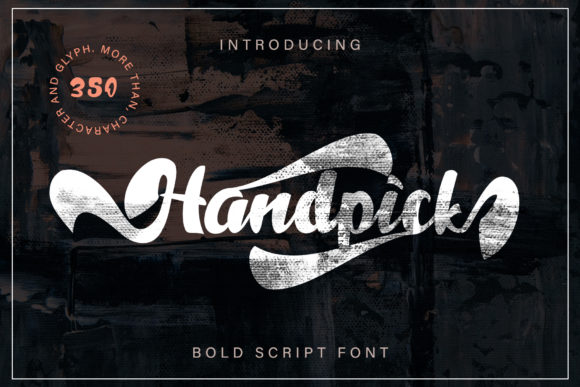
Introducing the Handpick Font - A Stroke of Brilliance for Your Creative Journey
Welcome to the world of Handpick font, a meticulously crafted script font that will ignite your creativity and transform your designs. Handpick is the brainchild of thomasaradea, a renowned font designer known for his exquisite artistry and passion for creating fonts that speak to the heart.
Handpick is not just a font; it's an experience. A journey through the realm of imagination, where words dance with grace and elegance, leaving a trail of enchantment in their wake. With its bold strokes and captivating curves, Handpick captivates the senses and invites you to explore the boundless possibilities of creative expression.
Step into the realm of Handpick and discover a font that's as versatile as it is captivating. Whether you're a seasoned designer seeking a touch of sophistication or a budding artist searching for a unique voice, Handpick is your perfect companion. Its adaptability shines through in a myriad of projects, from heartfelt wedding invitations and enchanting logos to alluring posters and stunning social media graphics.
Handpick's charm lies in its ability to evoke emotions and establish connections. Its bold presence commands attention, while its intricate details whisper secrets, inviting viewers to delve deeper into the depths of your creative vision. Let Handpick be your muse, your trusted guide through the labyrinth of creativity, leading you to design masterpieces that resonate with audiences and leave an everlasting impact.
Embrace Handpick today and embark on a creative adventure like no other. Unlock the power to transform your designs into captivating works of art, captivating hearts and minds with every stroke. Handpick is more than just a font; it's an investment in your creative future, an investment that will reap dividends for years to come.